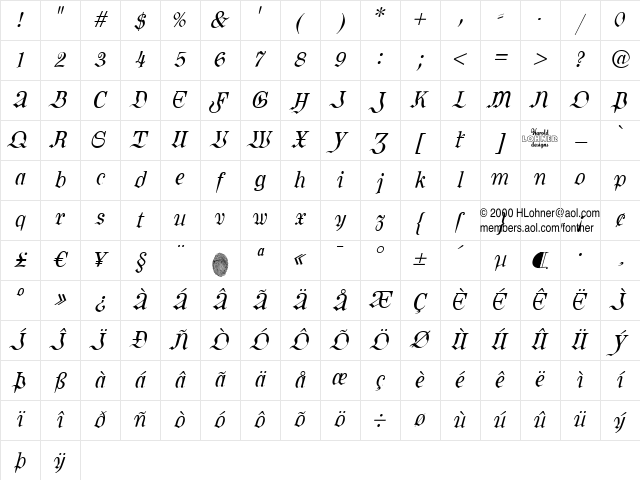
Kombine Kursiv
Style: Kursiv
Design Context for Kombine
Kombine is a composed and adaptable typeface that performs quietly and consistently across a wide range of design contexts. The slanted form adds forward momentum and visual energy.
Pro Tip: Use Kombine for emphasis, pull quotes, and subheadings where its slanted energy can add rhythm to the layout.